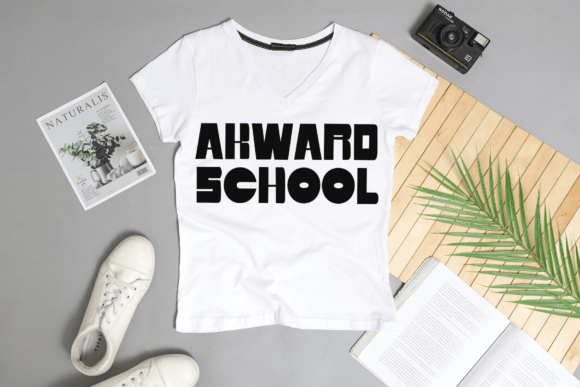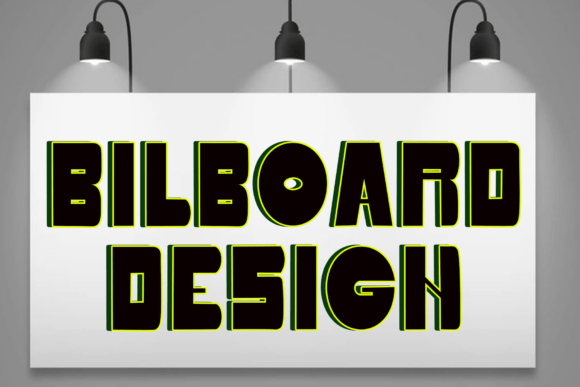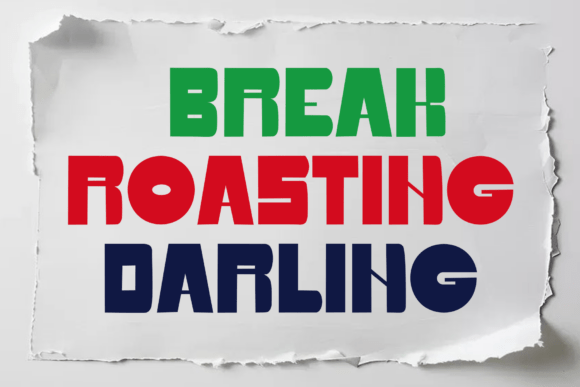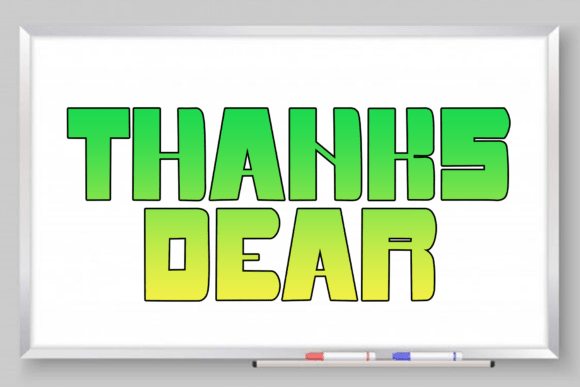
Introducing Gemini Font: The Perfect Blend of Warmth and Clarity
In the world of typography, fonts play a crucial role in conveying messages, expressing emotions, and creating lasting impressions. For designers, crafters, and anyone looking to elevate their visual projects, finding the right font can be a daunting task. That’s where Gemini Font comes in – a casual and neat display font designed to bring warmth and clarity to your projects.
The Genesis of Gemini Font
Gemini Font is crafted with the intention of providing a typeface that is both clean and approachable. Its design is rooted in the need for a font that can seamlessly blend into various design contexts, from branding and headlines to everyday designs. The creators of Gemini Font aimed to develop a typeface that not only stands out due to its aesthetic appeal but also communicates effectively, ensuring that every message feels genuine and inviting.
Key Features of Gemini Font
- Clean Structure: Gemini Font boasts a clean and structured design, making it highly legible across different sizes and resolutions. This feature is particularly beneficial for digital platforms where clarity is paramount.
- Approachable Style: The font’s approachable style ensures that it can connect with a wide audience, making it ideal for projects that require a friendly and welcoming tone.
- Balanced Letterforms: One of the standout features of Gemini Font is its balanced letterforms. These offer a perfect blend of readability and charm, ensuring that the text not only communicates the message effectively but also leaves a lasting impression on the reader.
Applications of Gemini Font
Gemini Font’s versatility makes it suitable for a wide range of applications. Here are some areas where it truly shines:
- Branding: For businesses looking to establish a strong brand identity, Gemini Font can be a valuable asset. Its clean and approachable design makes it perfect for logos, signage, and marketing materials.
- Headlines: The font’s display characteristics make it an excellent choice for headlines and titles. It can add a touch of elegance and professionalism to any piece of content.
- Everyday Designs: Whether you’re working on a personal project or a professional assignment, Gemini Font can add a touch of warmth and clarity to your designs. It’s suitable for flyers, brochures, posters, and more.
Why Choose Gemini Font?
In a sea of fonts, Gemini Font stands out due to its unique blend of warmth, clarity, and approachability. Here are a few reasons why designers and crafters might prefer Gemini Font:
- Readability: Its balanced design ensures high readability, making it perfect for both digital and print media.
- Versatility: Gemini Font can be used across various platforms and design contexts, making it a versatile addition to any design toolkit.
- Aesthetic Appeal: The font’s clean structure and charming letterforms add an aesthetic appeal to any design, helping it to stand out.
Gemini Font is more than just a typeface; it’s a tool for designers and crafters to convey their message with warmth, clarity, and style. Its clean structure, approachable style, and balanced letterforms make it an excellent choice for a wide range of design projects. Whether you’re looking to elevate your branding, create compelling headlines, or simply add a touch of elegance to your everyday designs, Gemini Font is a versatile and reliable option. With Gemini Font, you can ensure that your message not only communicates effectively but also resonates with your audience on a deeper level.